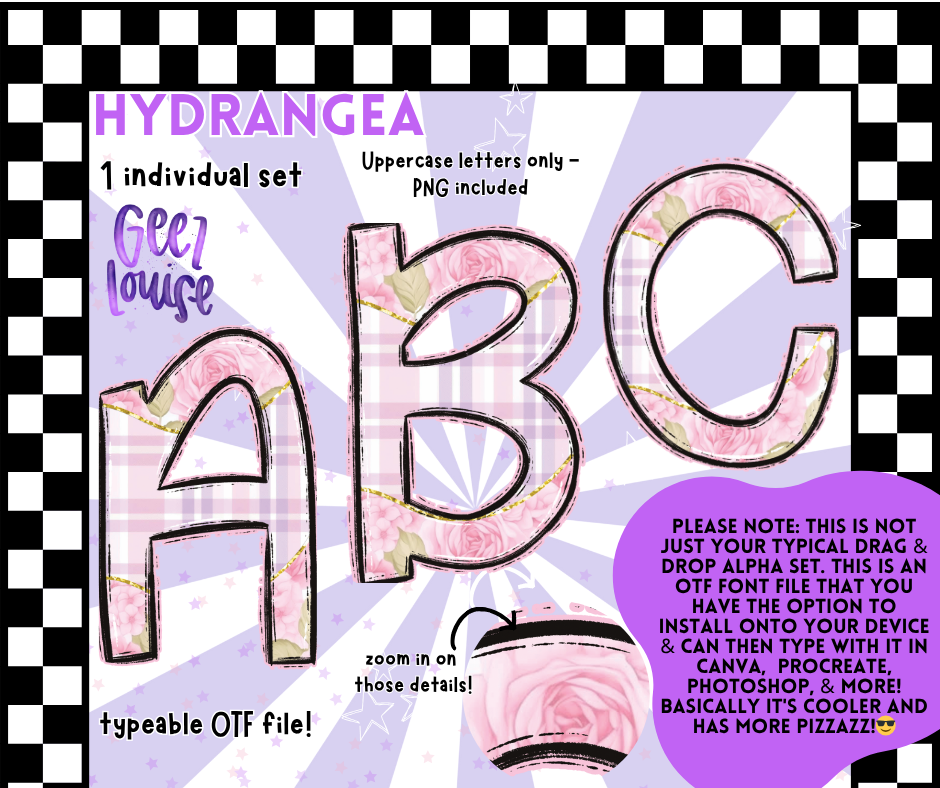
Hydrangea OTF Font + PNG Alpha Set
🌸 Hydrangea – Typeable OTF Font + PNGs
Soft petals meet bold patterns in Hydrangea, a typeable font that’s blooming with personality. With checkered backgrounds and lush floral textures, this uppercase-only set is perfect for creators who want their designs to feel sweet, stylish, and a little bit extra.
• Uppercase letters only
• 1 individual set featuring hydrangea florals + checkered backgrounds
This isn’t just a drag-and-drop alpha—it’s a full-blown font file with serious pizzazz. Every letter is a tiny garden party, combining vintage charm with modern flair. Whether you’re designing merch, invites, or dreamy digital art, Hydrangea brings the bloom.